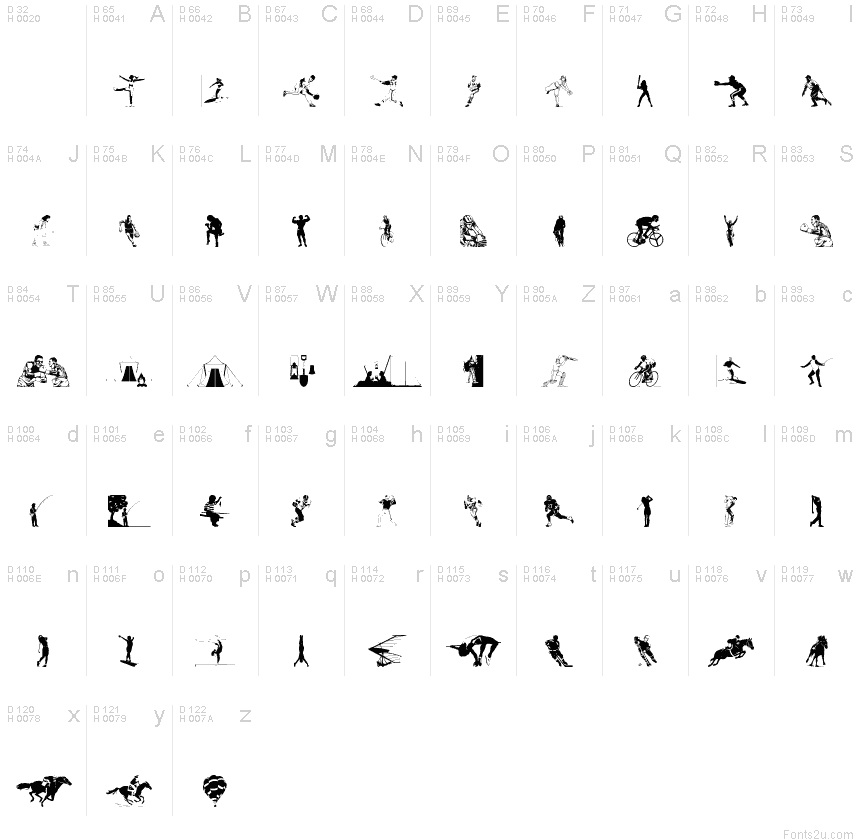
Sports 1 by Ouripedes Gallene is a free sports dingbat font built from illustrations of athletes rendered as solid silhouettes and brisk contour drawings, with boxing, gymnastics, board sports, and hockey all represented. Every figure is caught in active motion.
It is best suited to event posters, where a single athlete can identify the competition before supporting text is read. The same lively pictograms can mark sections in sports publishing, decorate team merchandise, or become illustrated badges for recreation programs, turning each athlete into both subject and symbol.